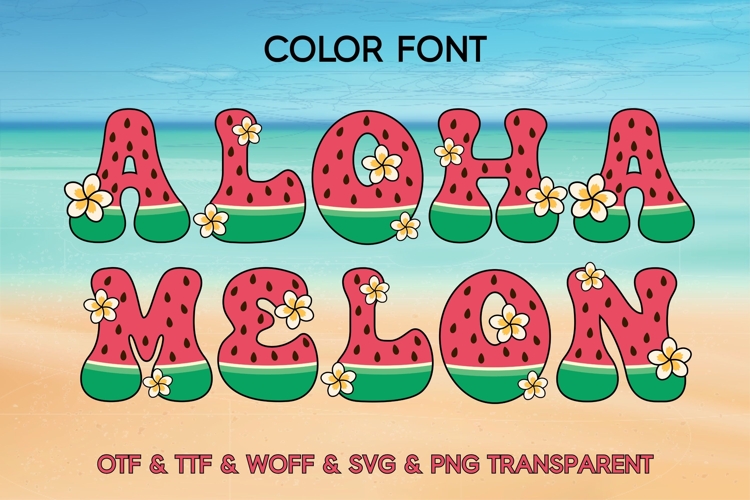
Aloha Melon Font
Add a splash of tropical sweetness to your designs with this adorable Aloha Melon Color Font! Inspired by juicy watermelon, beach vibes, and Hawaiian summer flowers, this playful display font is perfect for creating fun and cheerful designs.
Featuring bright watermelon textures, cute floral decorations, and bold rounded letters, this font is ideal for summer projects, kids crafts, party invitations, stickers, sublimation, Cricut projects, social media graphics, and tropical branding.
Perfect for designers who love cute tropical aesthetics and colorful typography 🍉🌺☀️
This groovy floral font is ideal for anyone who loves cute retro lettering, spring flowers, and playful handmade designs.
Perfect for greeting cards, children’s crafts, party invitations, stickers, and holiday merchandise, this color typeface comes in OTF, TTF, WOFF, SVG, and PNG formats for versatile use. Its bright palette and adorable design bring a joyful energy to every creation. Each glyph is richly detailed and rendered in color, making it ideal for projects where character and personality matter.